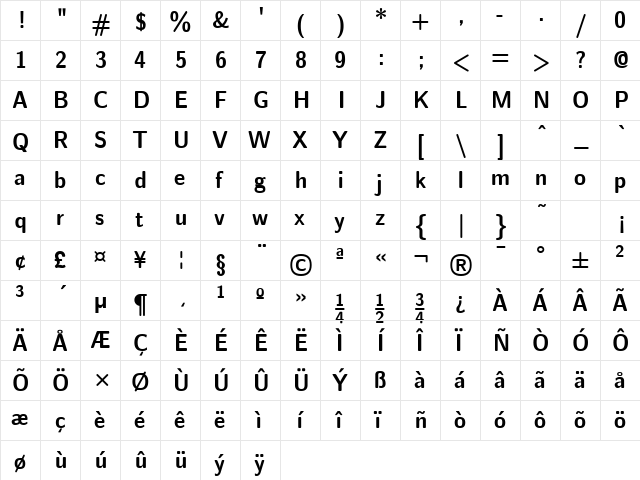
Emil Bold
Design Context for Emil Typeface
Emil is a composed and adaptable typeface that performs quietly and consistently across a wide range of design contexts. The heavy weight commands attention and anchors typographic hierarchies.